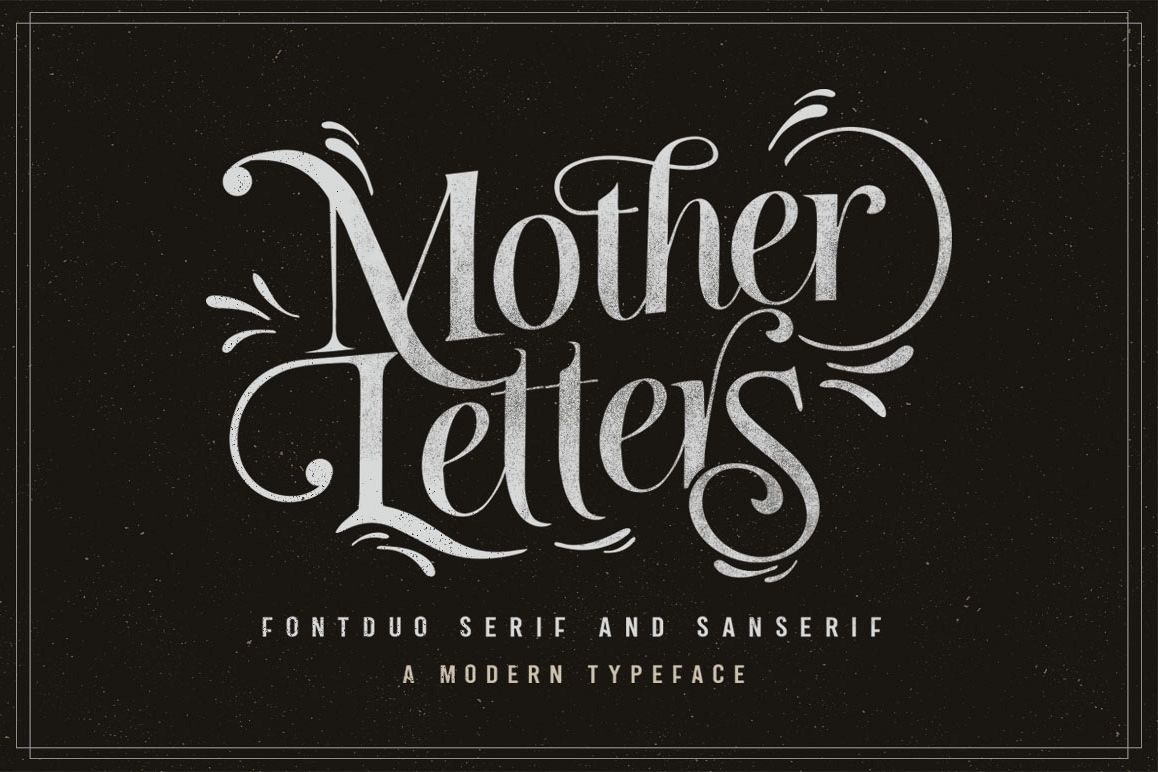
MOTHER LETTERS FONT DUO
MOTHER LETTERS FONT DUO BONUS VECTOR ORNAMEN, ILLUSTRATION AND LABEL VINTAGE
Mother Letters is a beautiful font duo that combines two fonts namely, The Luiston fonts and Samiyatta San Serif fonts that are combined into one pretty package. You will see this combination more in badges logos.
Mother Letters a typeface classic taste ,very suitable as to make a design choice for books, magazines, packaging, branding , signage and more other creative project.
Mother Letters Font Duo a beautiful for logotype, website header, fashion design, poster, clothing apparel, quotes and will add a beautiful touch of handmade love to your projects- use it for label designs, headlines, logotypes, signage, posters, greeting cards, letterhead , logos and more.